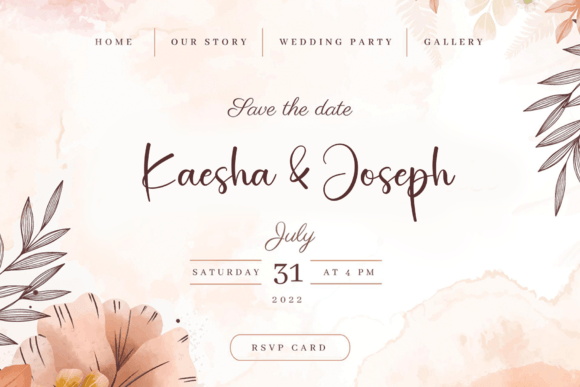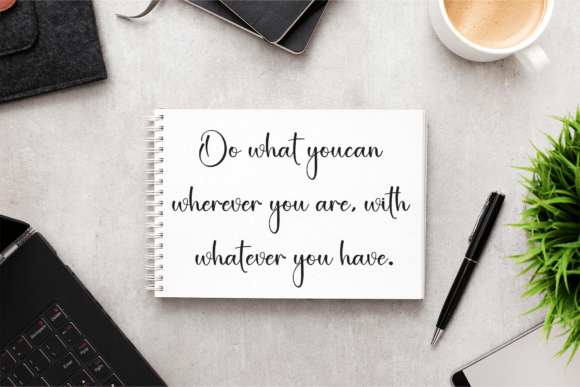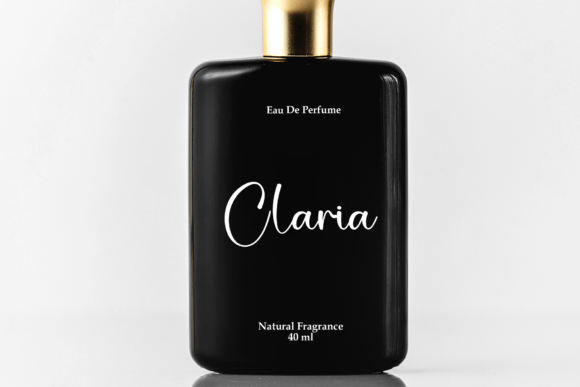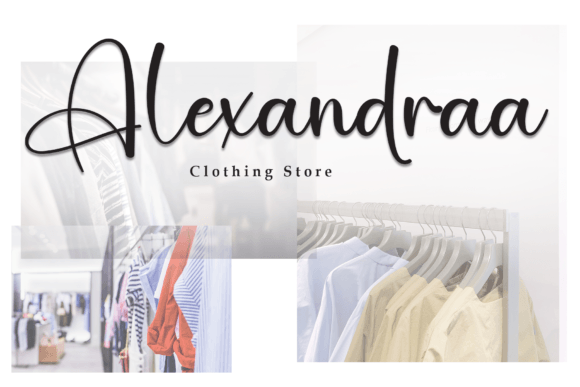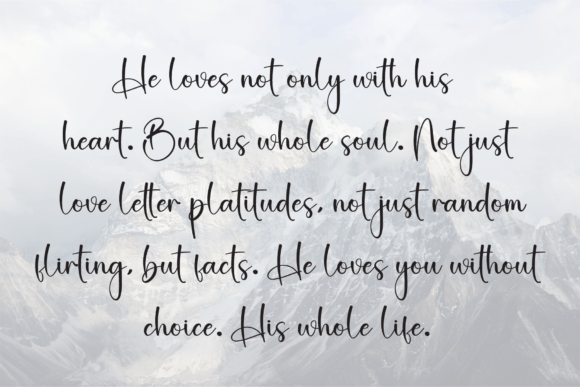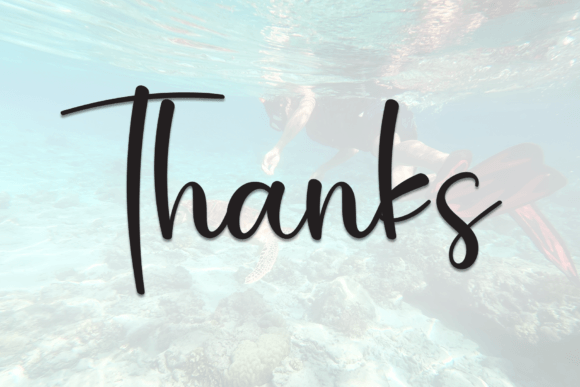
Introduction to Scuba Font
As a designer, there’s nothing quite like that moment when all the elements of a project come together in perfect harmony. You’ve poured your heart and soul into it, and it’s finally ready to shine. But what’s the secret to elevating your work to the next level? For many creatives, it’s all about the font – and that’s where the Scuba Font comes in.
This exquisite handwritten font is a game-changer for any design project. With its classy calligraphic influences and fresh, contemporary feel, it’s the perfect addition to any design resource. Whether you’re working on a high-end branding project or a free download for a creative community, the Scuba Font is sure to bring a touch of sophistication and elegance to your work.
Key Features of Scuba Font
- High-quality, professional font design suitable for various creative projects.
- Transparent background option for seamless integration into designs.
- Perfect for use in digital designs, such as logos, branding, and web content.
- Unique, modern design aesthetic that adds a touch of sophistication to any creative project.
Honest Review: Scuba Font
As a designer, I’m always on the lookout for high-quality design resources that can elevate my creative projects. Recently, I had the chance to try out Scuba Font, and I’m here to share my honest review.
What works well: ✨ Scuba Font has a beautiful, modern design that’s perfect for creating a sleek and sophisticated look for my projects. The font is highly versatile and can be used for a variety of purposes, from headings to body text. The transparent background option is a nice touch, allowing me to easily integrate it with my existing design elements.
- Modern and versatile
Limitations: ⚠️ While Scuba Font is a great resource, I did find that it’s not suitable for all types of projects. The font may not be the best choice for projects that require a more playful or whimsical feel. Additionally, the font’s versatility can sometimes make it difficult to use it consistently throughout a project.
Overall, I’m impressed with Scuba Font and would recommend it to designers who are looking for a high-quality, modern font for their creative projects. The free download option is a definite plus, making it an accessible resource for designers of all levels.
Tips for Getting the Most Out of Scuba Font
To get the most out of Scuba Font, use it with a transparent background to create a seamless design. This font is ideal for use in creative projects where you want to add a touch of sophistication and elegance.
Scuba Font is commonly used in various design projects, including:
- Graphic design and visual arts
Can I use Scuba Font with a transparent background?
Yes, Scuba Font supports transparent backgrounds. When designing with a transparent background, ensure that your design software supports layer blending modes and alpha channels. This will allow you to create a seamless transparent background with Scuba Font. You can also use image editing software to achieve a transparent background.